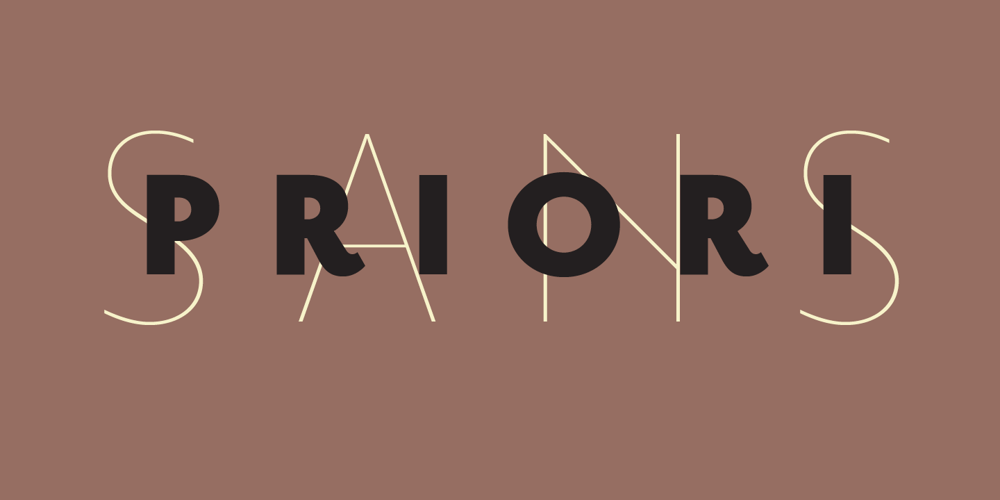
Priori Sans
Priori Sans font
Priori Sans Font Family was designed by Marcus Leis Allion, Jonathan Barnbrook and published by Emigre. Priori Sans contains 6 styles and family package options. After the popular successes of Exocet and Mason, Emigre has once again teamed up with Jonathan Barnbrook to bring you his latest venture into type land. Priori is a logical progression from Mason, a typeface he designed around ten years ago. Where Mason was designed purely for display purposes and featured only caps, Priori includes lower case, companion serif and sans serif versions, alternates and, according to its creator, is shooting for text face status – a bold claim from a designer who loves to wear his influences on his sleeve and who has little use for typography that aspires to be “neutral” or “transparent.” Like many of Barnbrook’s typeface designs, Priori is based on his interest in British typography of the early 20th century. It is inspired by the work of famous British typographers, such as Eric Gill and Edward Johnston. But it also embraces all of the signage and lettering that Barnbrook observes in the streets, cathedrals, and public buildings of his London neighborhood. This mixing of native influences with a contemporary pop culture intent is what gives Barnbrook’s types a distinct and unique flavor. Like its creator, Priori is a one of a kind.